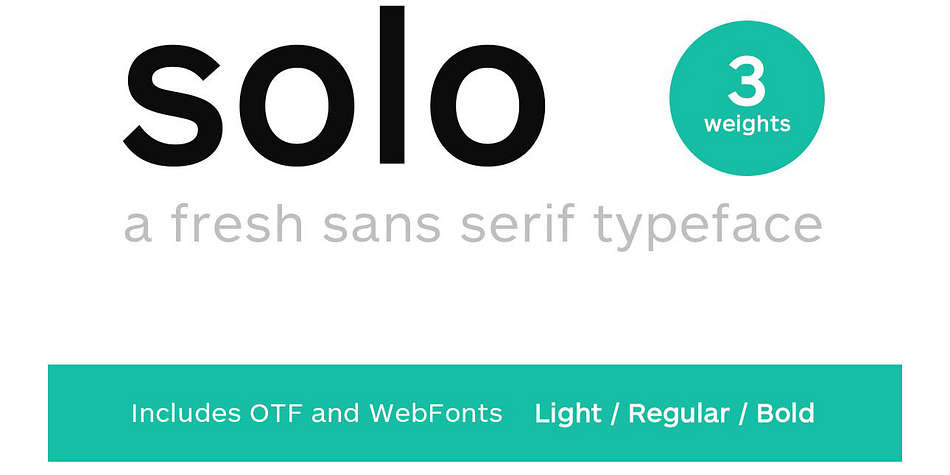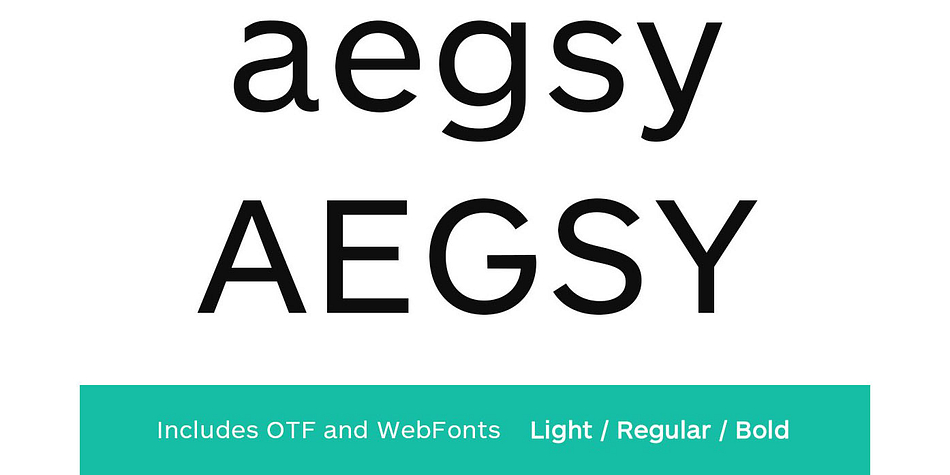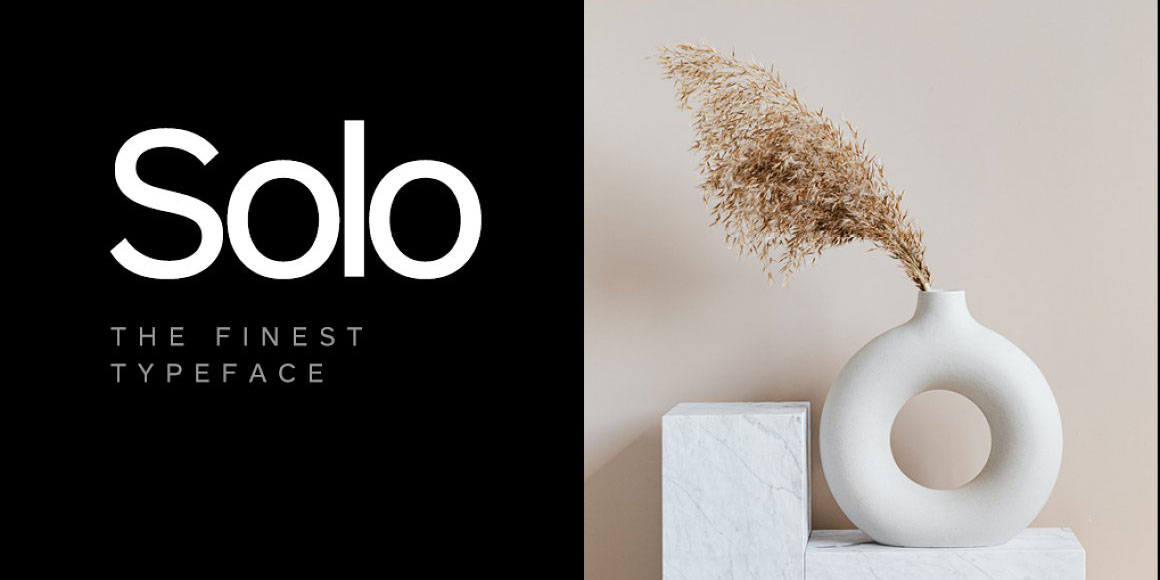
SOLO
Designed by Jean P. Johnson and Lisha Joseph, SOLO is a sans serif font family. This typeface has three styles and was published by Fontastica.
Here is a fresh sans serif typeface for your creative freedom. Solo is a beautiful sans serif typeface inspired from the great Swiss designs and the amazing typefaces evolved from it. This font is perfectly suitable for modern web and print designs, specially dedicated to web designers with a passion for minimal design and trendy styles.
Font produced by Fontastica (formerly Unique Foundry), distributed by Designova.
Designers Jean P. Johnson, Lisha Joseph